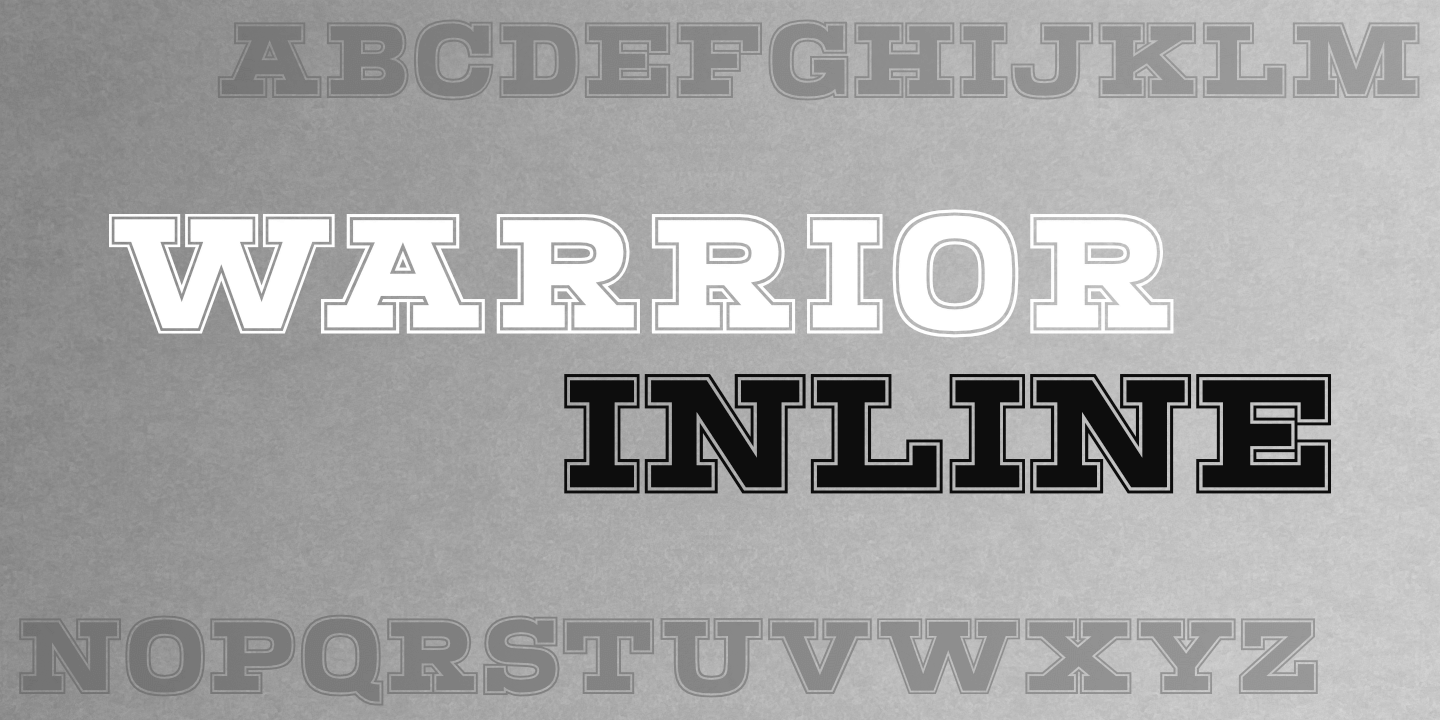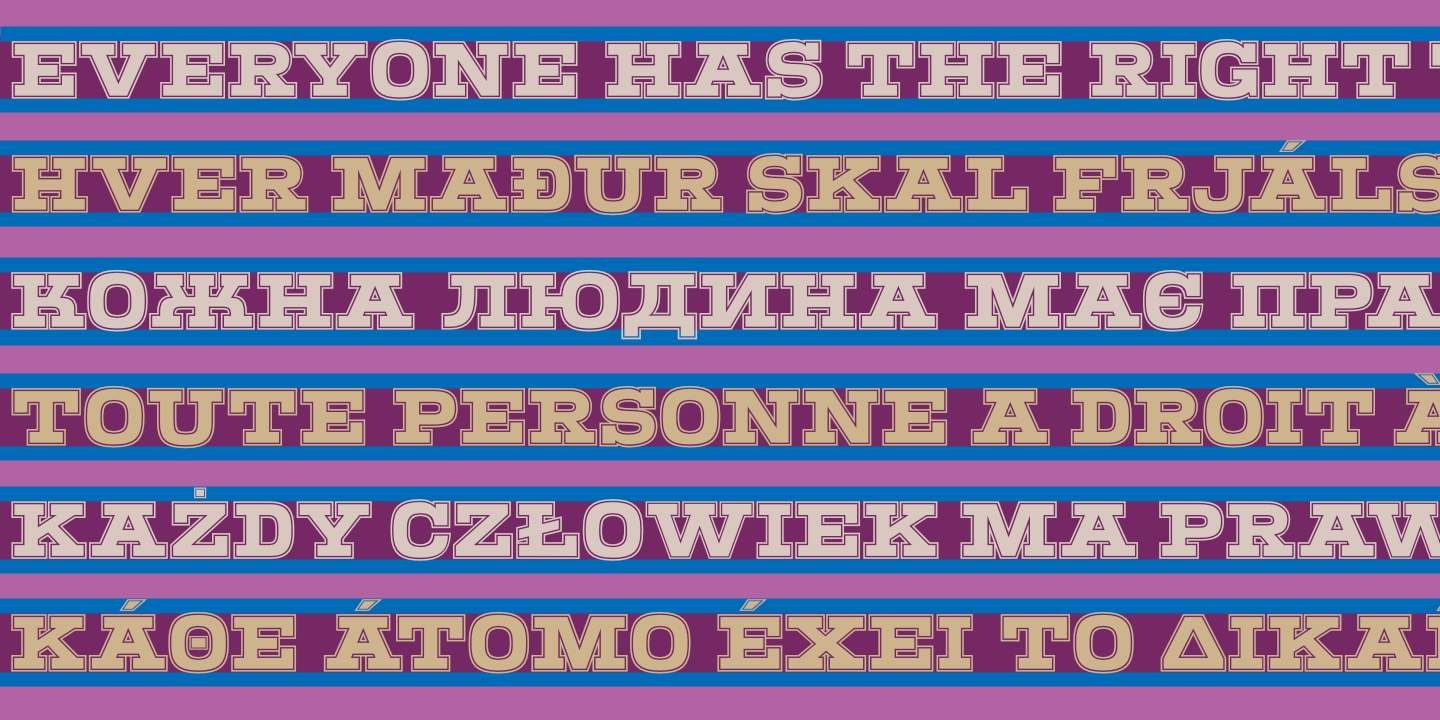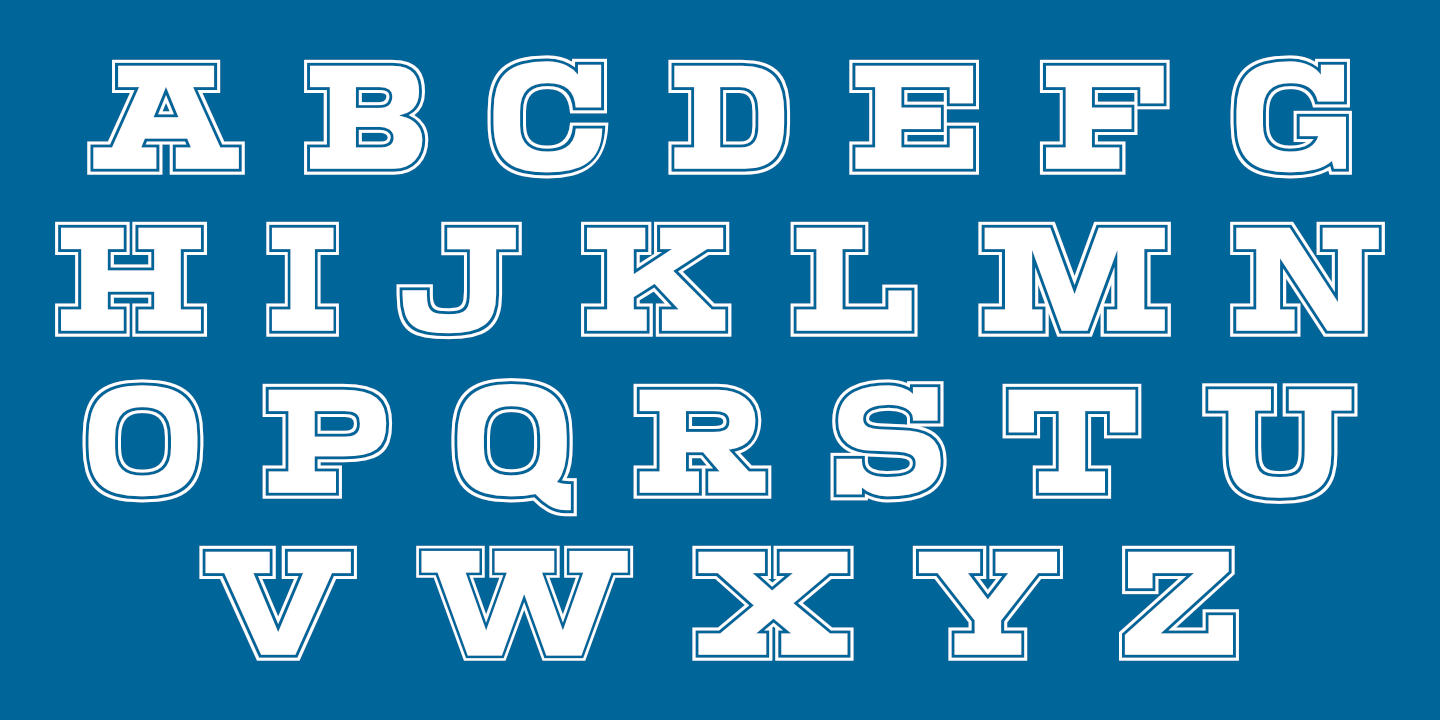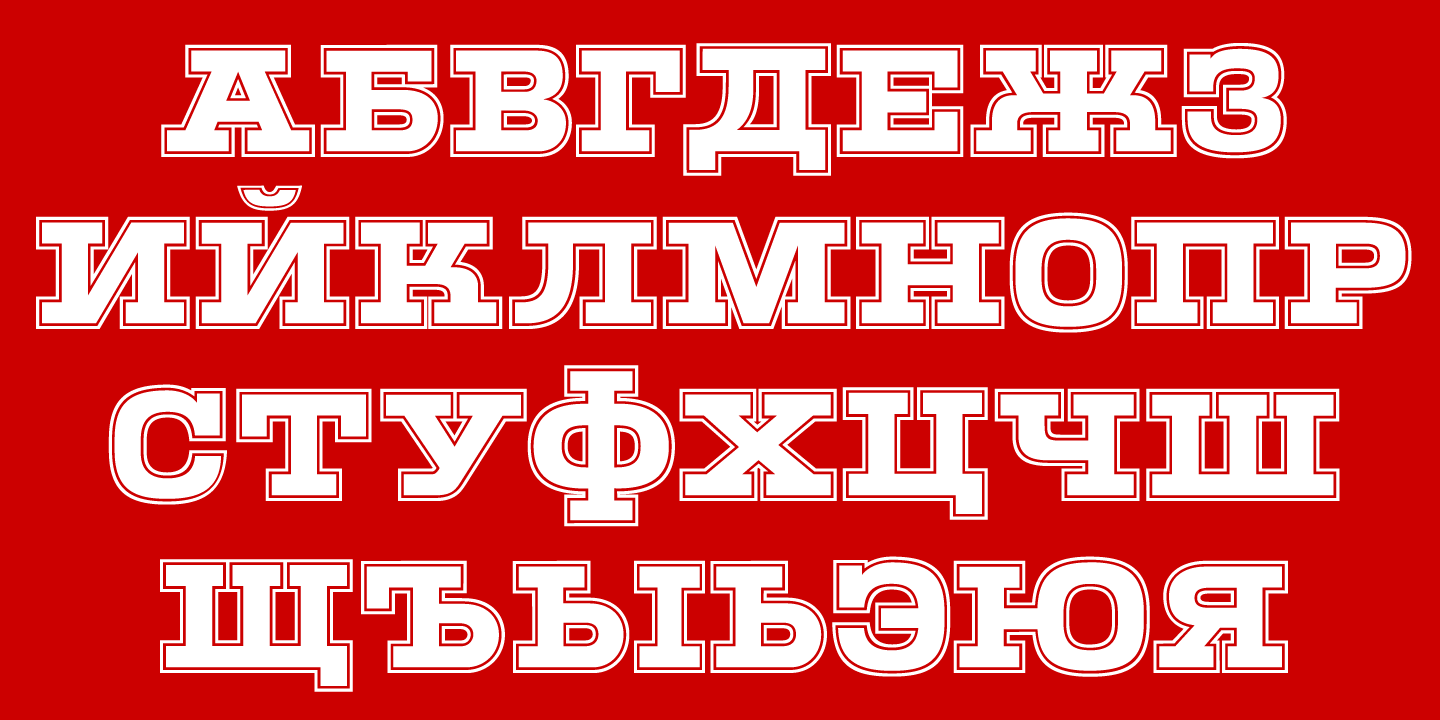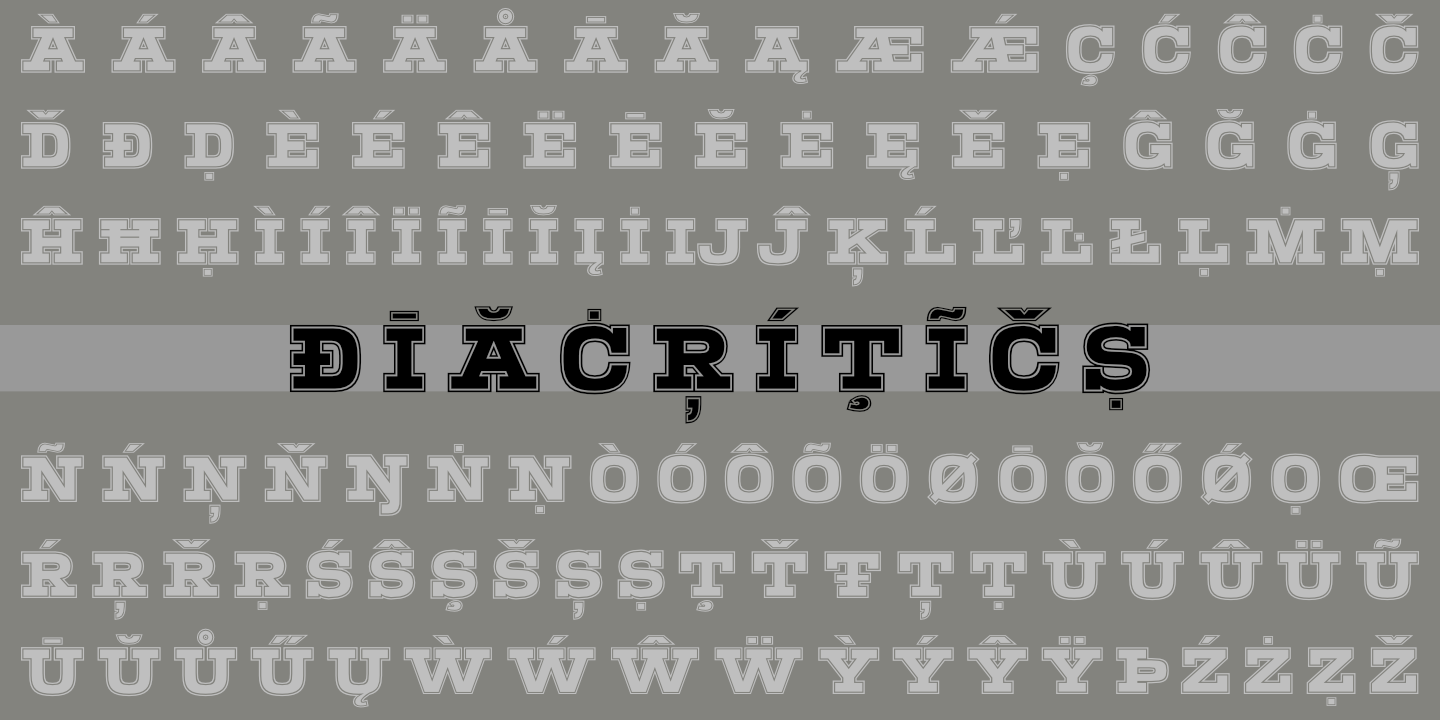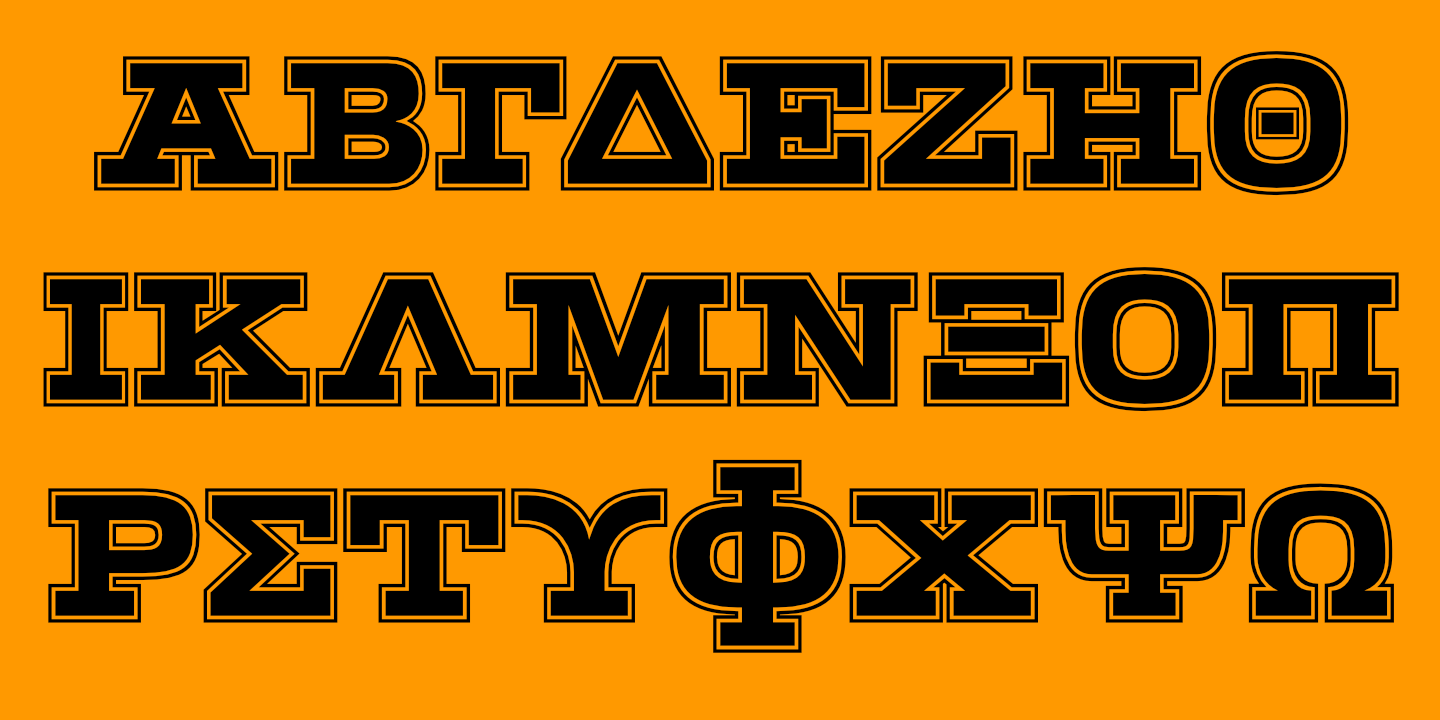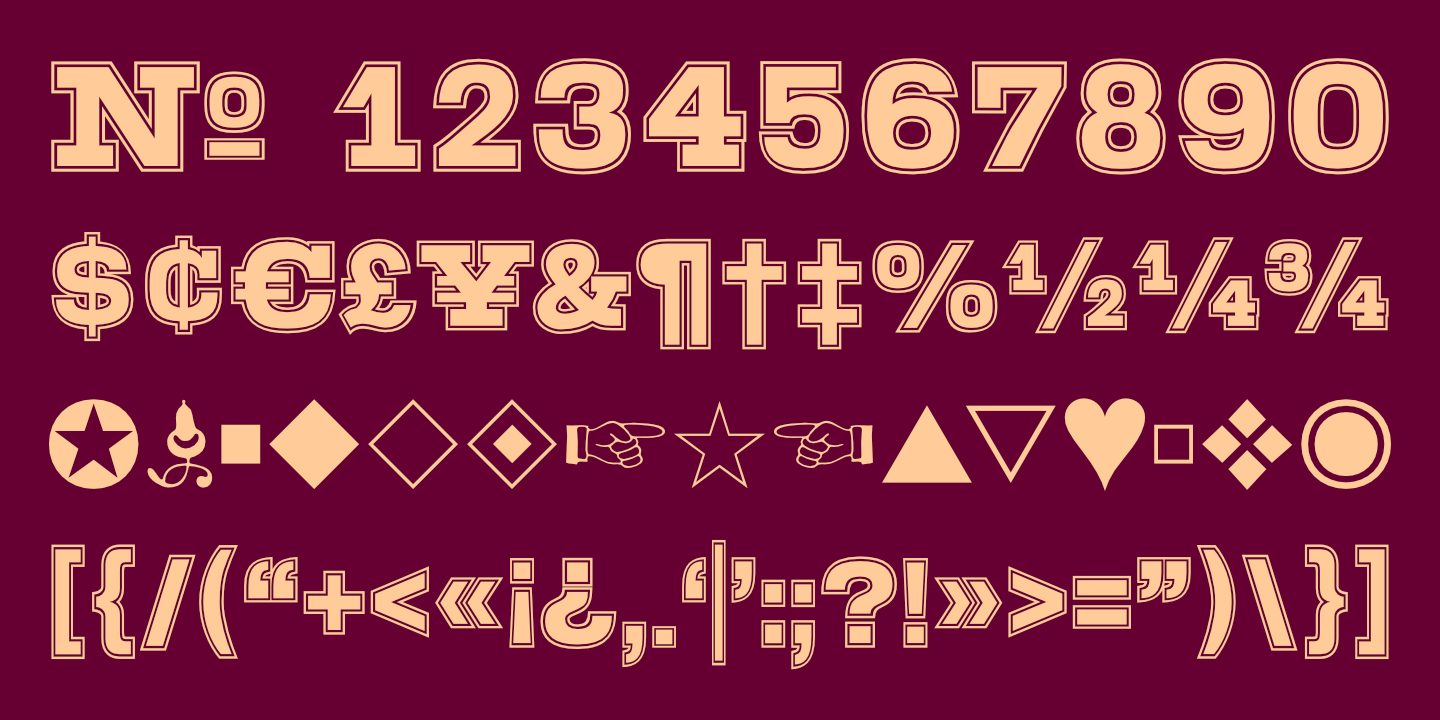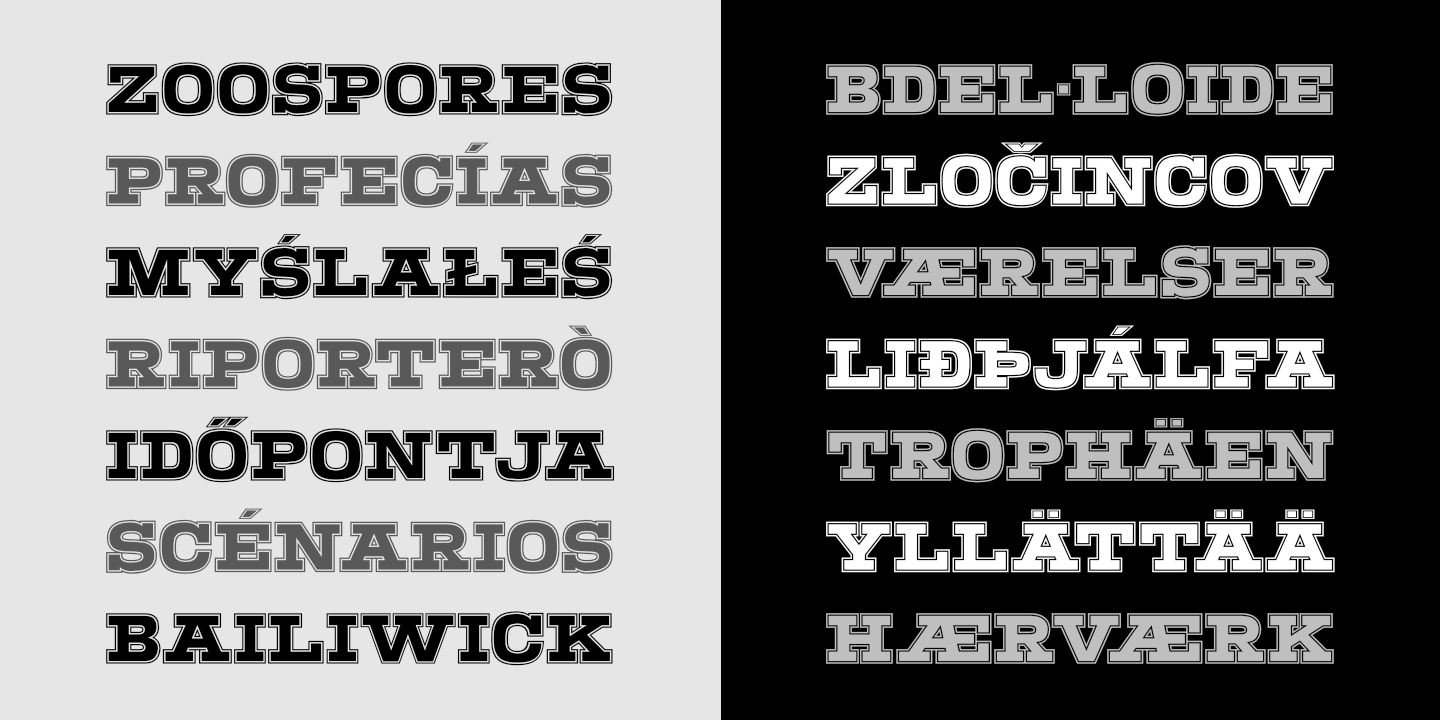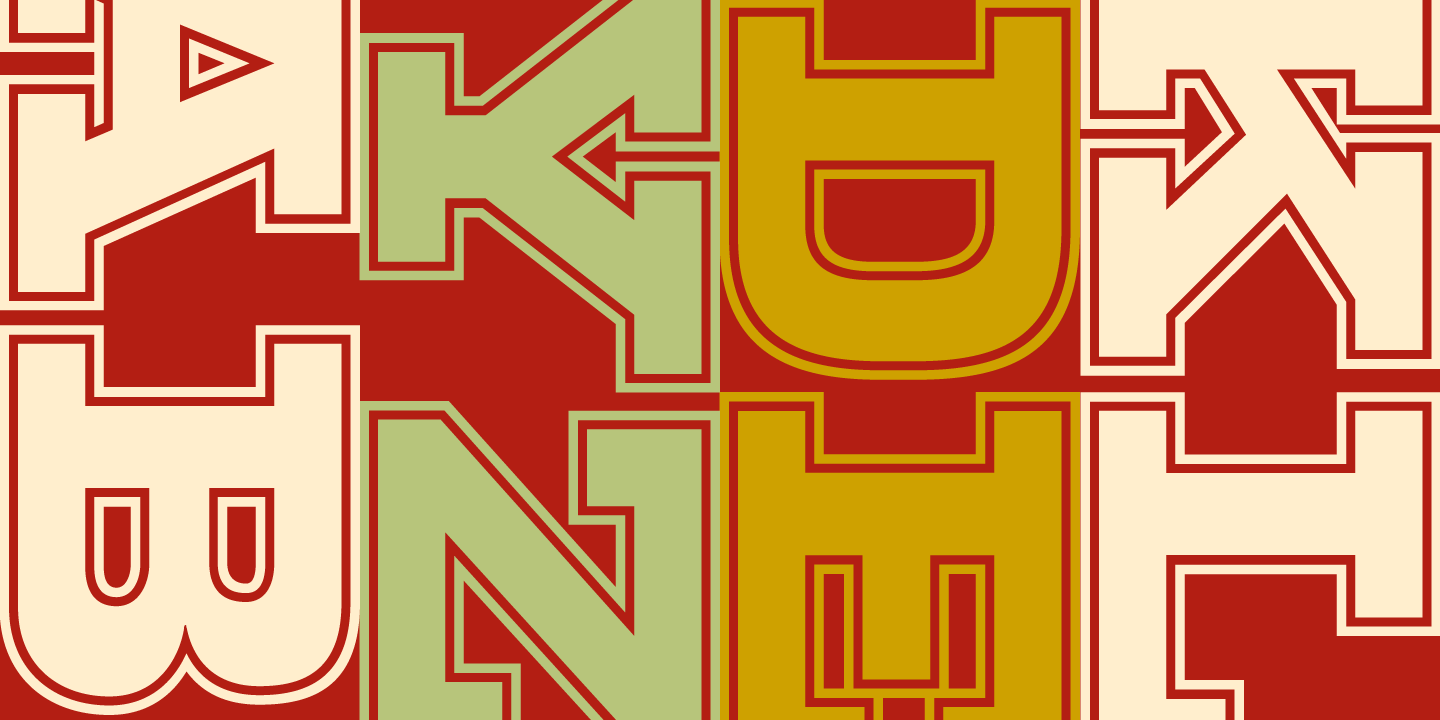
Warrior Inline: Basic Latin alphabet.
Warrior Inline supports most languages that use the Cyrillic alphabet.
Warrior Inline supports modern (monotonic) Greek.
Warrior Inline supports most European languages.
Stacked Text
Notice that light text on a dark background appears slightly heavier than dark text on a light background. blank
Diacritics
Warrior is available in seven weights and three decorative styles.
Banquet Bouquet